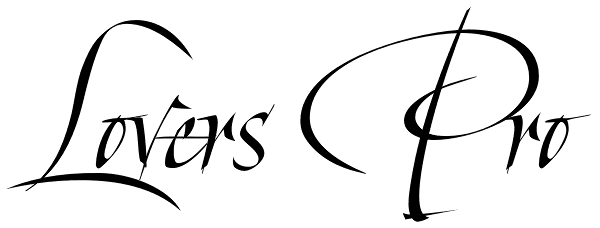
Lovers Pro
Lovers is a romantic, elegant handwritten calligraphic script, with well over 300 additional characters, including standard and discretionary ligatures, swashes and stylistic alternatives. Use of its extensive OpenType features enable the designer...